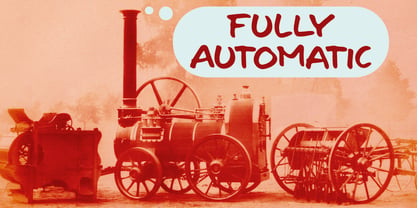
Fully Automatic
by Hanoded
I raise chickens for eggs and meat. I usually buy fertilised eggs online and place them in my incubator, which says that it is 'fully automatic'. Of course I added that rather random introduction to tell you how I came up with the name for this new font...
Fully Automatic is a handmade cartoon font: I used a sharpie pen to draw the glyphs onto rough paper. The result is a wobbly, yet quite clean cartoon font.
Fully automatic comes with extensive language support and two sets of alternates for the lower case glyphs that cycle as you type.